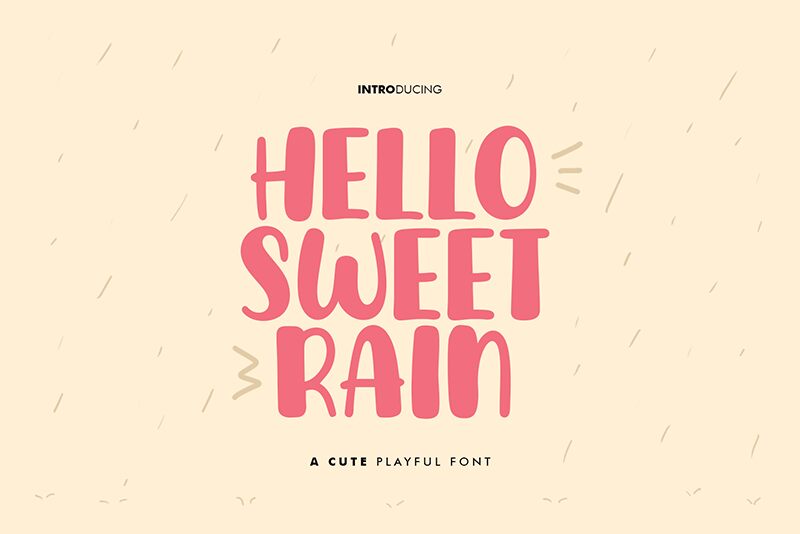
Hello Sweet Rain
Hello Sweet Rain font by Khurasan is an expressive display font that immediately captures viewers with its approachable mood and smooth flow. Its cartoon style and friendly tone make every design engaging and relatable by the looks of communicating in a bold manner which grabs attention at first glance.
This free display font is perfect for lettering, t-shirt designs, coloring book covers, school newsletters, magazines, comics/manga, kids branding, or any project where you want your words to stand out in a lovely manner.